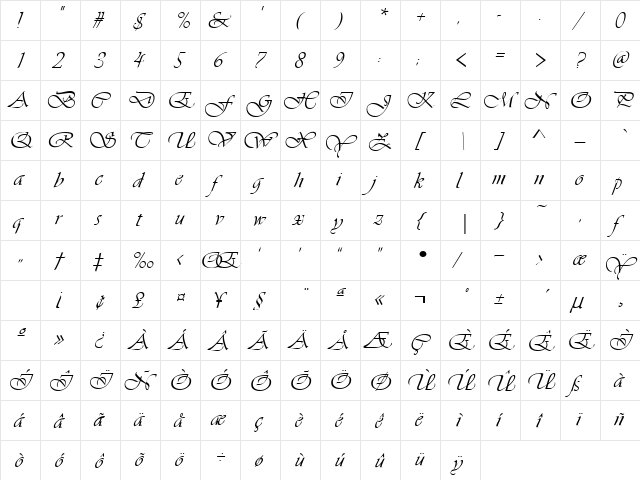
Simone Regular Font Preview
Simone Regular
Design Context for Simone Typeface
Simone is a composed and adaptable typeface that performs quietly and consistently across a wide range of design contexts.